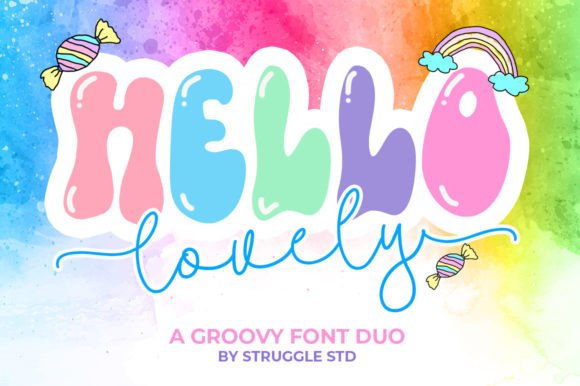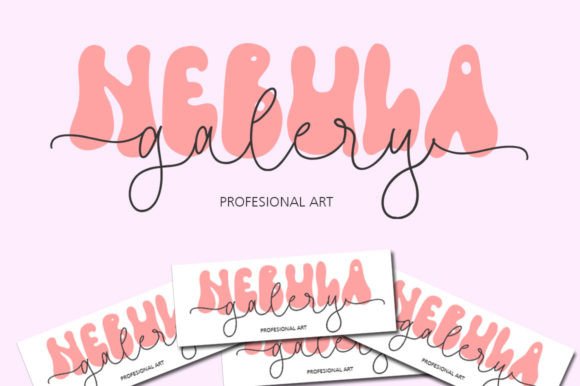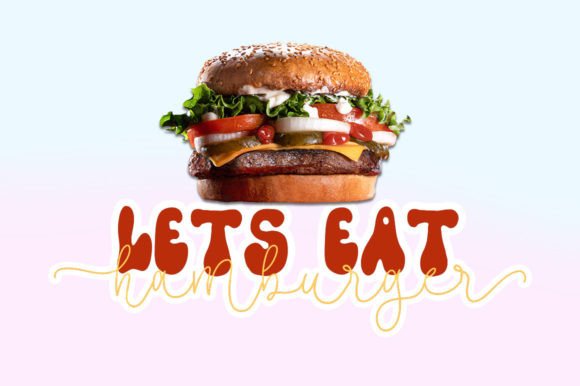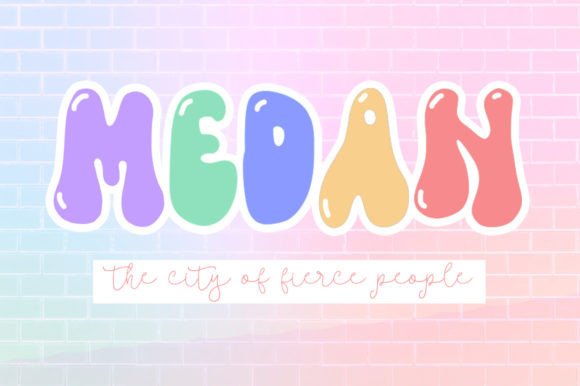
Hello Lovely Font
About the Hello Lovely Font
Unleash your creativity with Hello Lovely Font, a versatile font perfect for a wide range of applications. Hello Lovely is a grovy and petite (handwritten and display grovy) font duo, featuring a sweet and soft look. This original look will appeal to a variety of crafty ideas, from letterhead and titles to writing implements.
Hello Lovely Font excels in display applications such as logos, short headlines, and packaging design where its charming, handwritten quality adds a touch of personality. Its petite size makes it ideal for smaller design elements needing a delicate touch. However, it’s less suitable for body text or longform content due to its limited readability at smaller sizes.
The font’s core personality is undeniably playful and friendly, yet sophisticated. It would be a perfect fit for brands targeting a young, creative demographic, perhaps in the fashion, food, or stationery industries.
Pairing Hello Lovely with a clean sans-serif like Montserrat or a slightly more geometric sans-serif like Futura would create a strong visual balance, allowing the handwritten quality to stand out without overwhelming the design. For a more luxurious feel, consider pairing it with a classic serif typeface such as Garamond.
Hello Lovely Font Usage Examples
Hello Lovely Font Example